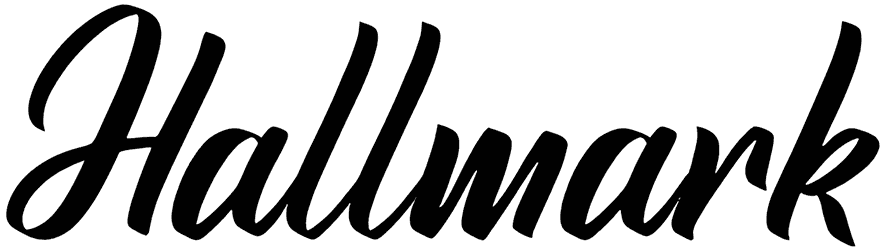
Hallmark Font
Hallmark is a modern handwritten font that comes with stylish characters and makes your design more eye-catching and unique. It also gives off a fashionable and charming touch to your work. You can use it for movie poste…
Hallmark is a modern handwritten font that comes with stylish characters and makes your design more eye-catching and unique. It also gives off a fashionable and charming touch to your work. You can use it for movie posters, album covers, greeting cards, T-shirt prints, and product packaging. So pick out this script font for your upcoming projects and enjoy the outcome.